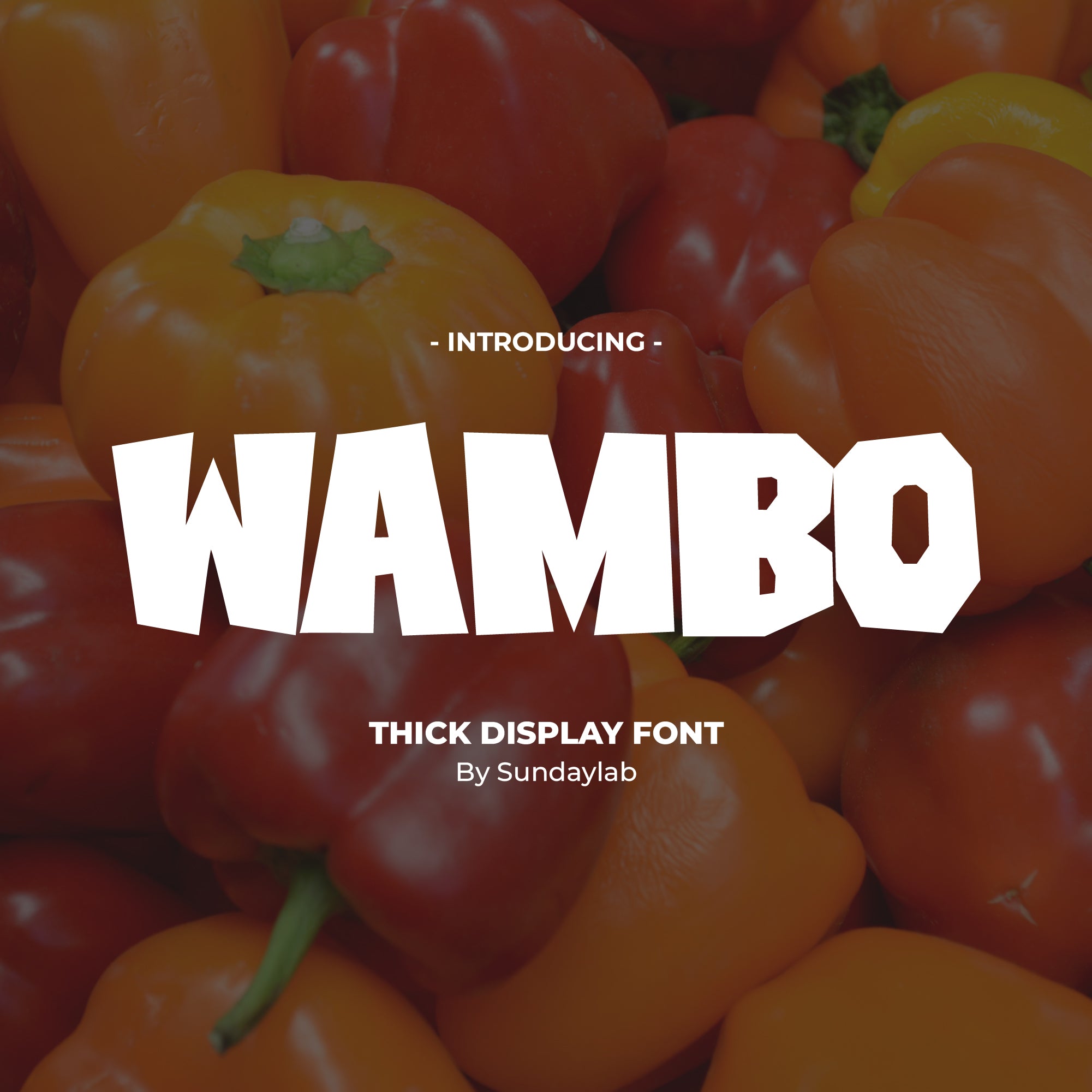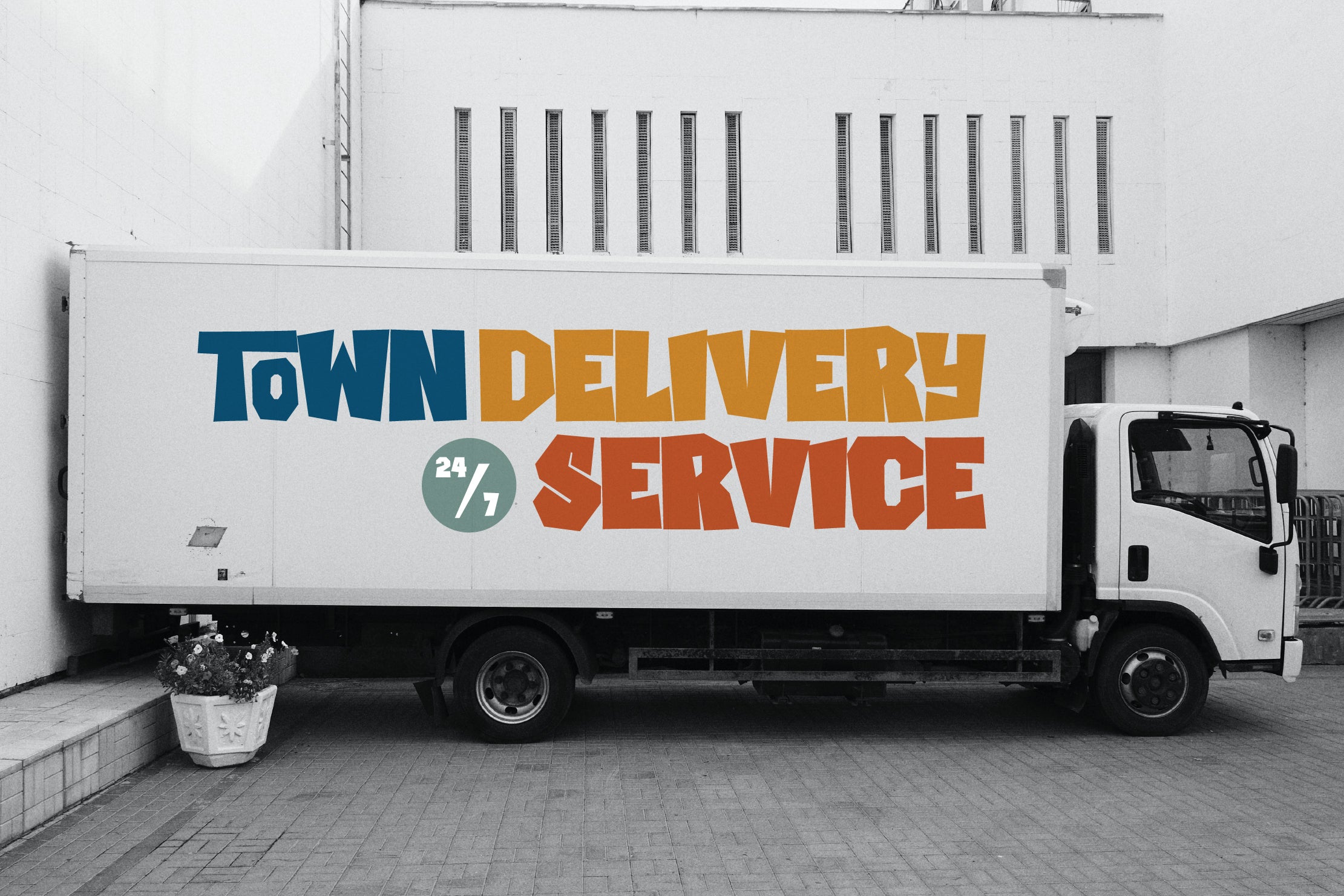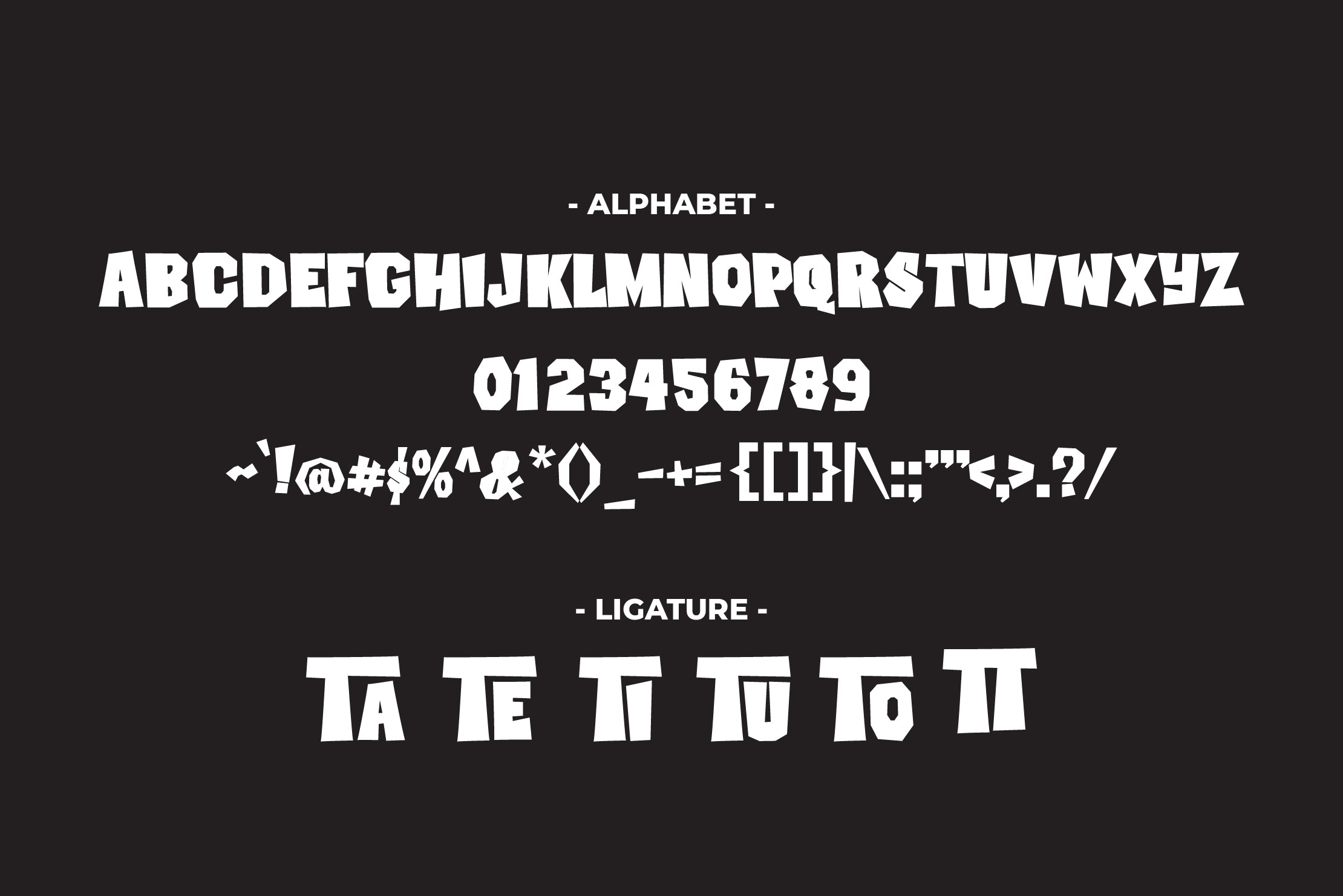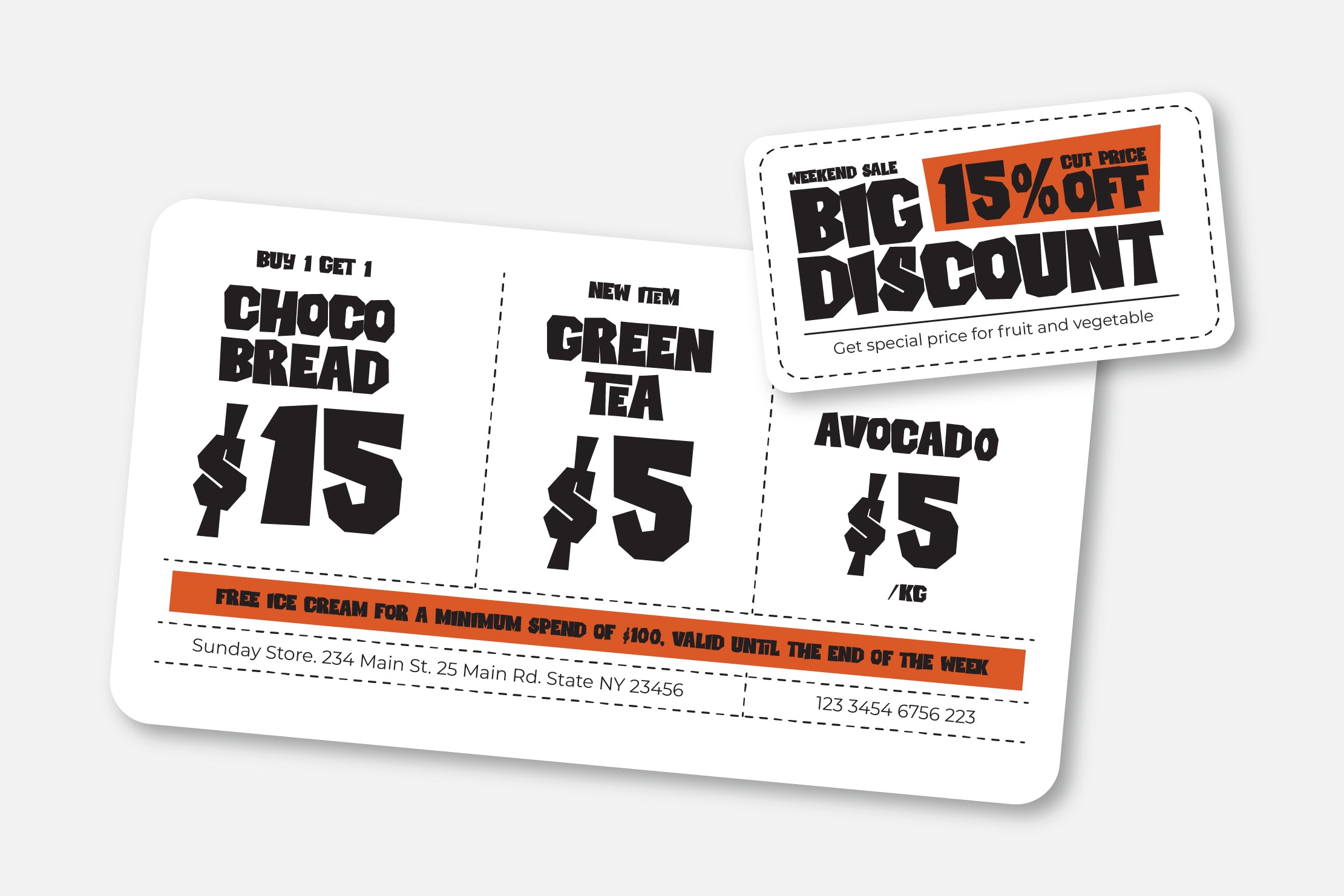
Wambo Thick Display Font
Introducing
Wambo Thick Display Font
Wambo is a bold and distinctive display typeface built around strong geometric forms, sharp cuts, and unconventional proportions.
Its heavy construction and angular details create a powerful visual presence, making it ideal for attention-grabbing headlines, logos, posters, advertising graphics, packaging, editorial layouts, and bold branding projects.
The typeface combines a rugged character with a contemporary display aesthetic, giving your typography a strong and memorable personality.
Wambo also includes a selection of ligatures that add extra character and visual variation to your compositions.
Wambo Thick Display Font is a bold and distinctive typeface characterized by strong geometric forms and angular details. It includes .otf and .ttf files, along with a selection of ligatures for added visual variation.